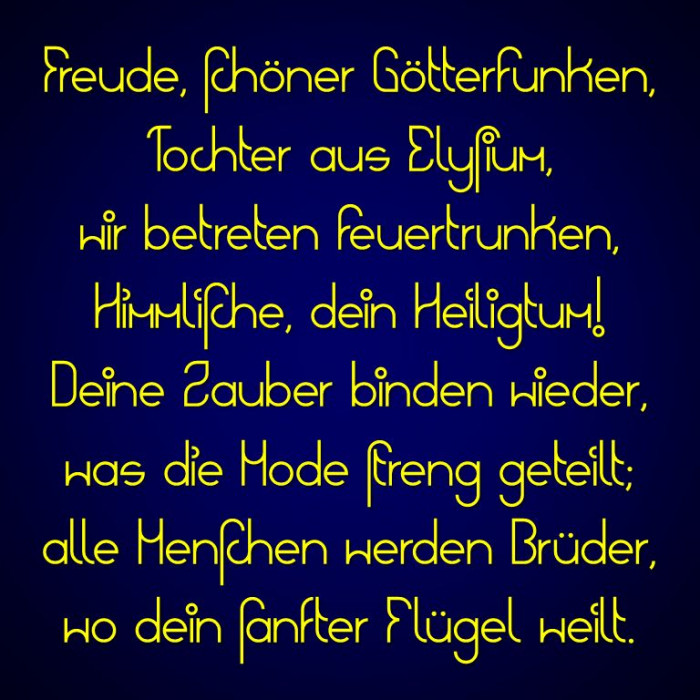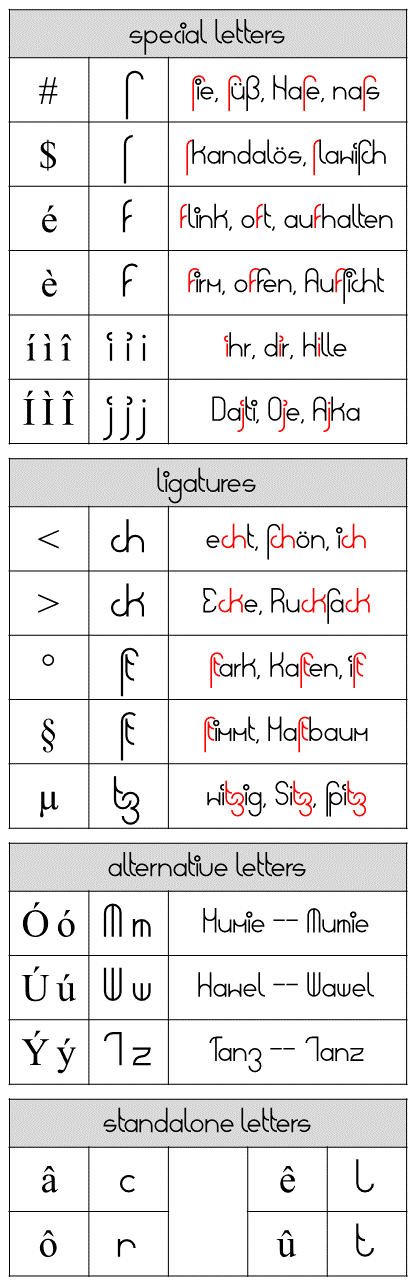
Deutsche Grotesk (German Sans Serif) is my first FontStruction. It's a very geometric, futuristic looking font with Ää, Öö, Üü and ẞß.
It also includes:
- the long s:  ſ
- the "Zwangsligaturen" (forced ligatures):  ch, ck, ſt, tz
- alternative versions of:  M, m, W, w, T, z
- standalone versions of:  c, l, r, t
- and more (see table below).